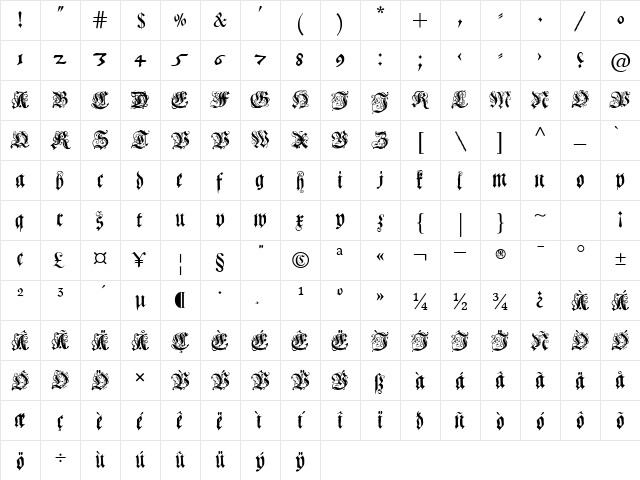
Coelnische Current Fraktur OsF UNZ1 Regular
Designer: Dieter Steffmann
Design Context for Coelnische Current Fraktur OsF UNZ1
Coelnische Current Fraktur OsF UNZ1 draws on the rich tradition of blackletter calligraphy, with dense, angular strokes that evoke medieval manuscripts and old-world craftsmanship.
Font Pairing: Pair with a clean neutral sans-serif for body copy to let Coelnische Current Fraktur OsF UNZ1's character lead without overwhelming the composition.
Pro Tip: Reserve Coelnische Current Fraktur OsF UNZ1 for display and logo use - pair it with a clean sans-serif for body copy to prevent the composition from feeling oppressive.